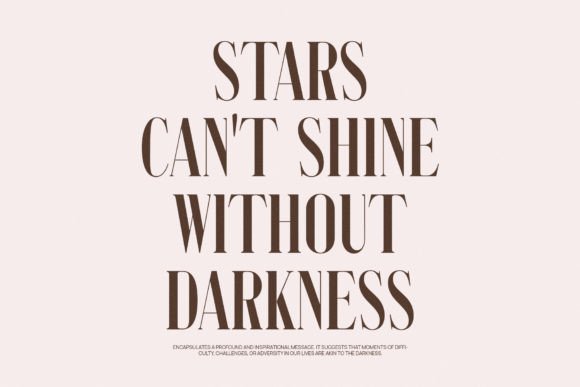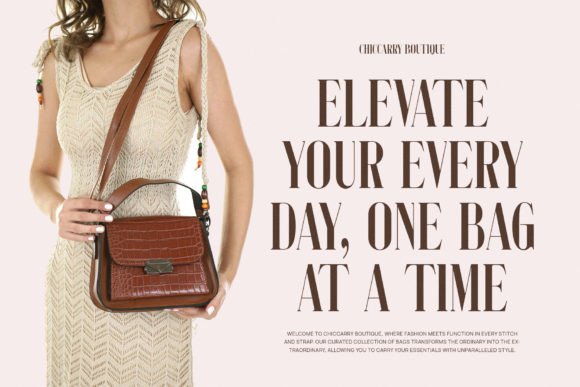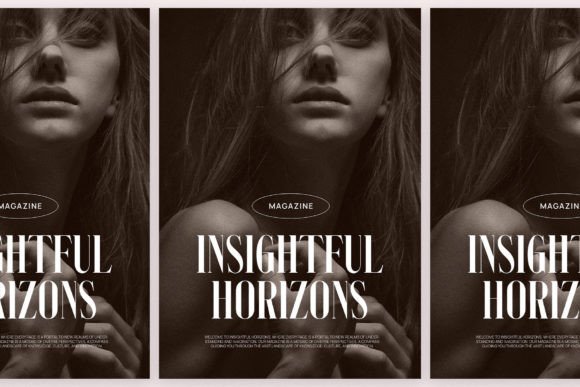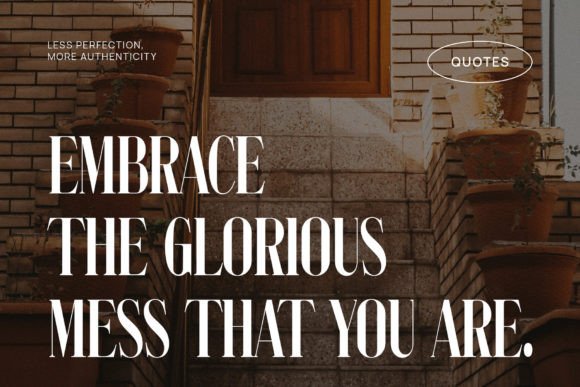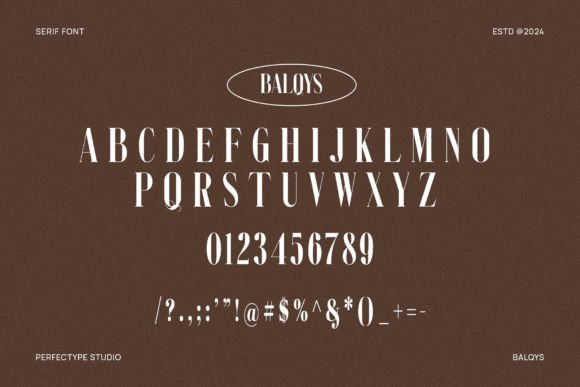
The Elegance of Balqys Font: A Designer’s New Best Friend
I still remember the last time I was working on a wedding design project, and my client asked for a font that was both elegant and modern. I scoured the internet, tried out countless fonts, but nothing seemed quite right. That was until I stumbled upon Balqys Font. ✨ It was love at first sight! The perfect blend of serif elegance and contemporary style, it was exactly what I needed to bring my design to life.
An Honest Review of Balqys Font
- ✅ Elegant serif typeface with a modern twist
- ✨ Highly readable, making it perfect for body text
- ✅ Versatile and suitable for a wide range of design projects
- 💼 Great for branding, logos, wedding designs, social media posts, and more
While Balqys Font is an excellent choice for many design projects, there are a few things to keep in mind. 🤔
- ⚠️ Limited availability of certain OpenType features in some platforms
- ⚠️ May not be the best choice for very large or very small font sizes
The Story Behind Balqys Font
Balqys Font was designed with the goal of creating a elegant and modern serif typeface that would be suitable for a wide range of design projects. The designer, inspired by classic serif fonts and modern design trends, crafted a font that is both highly readable and visually appealing.
| Font Name | Balqys Font |
| Author | Perfectype |
Q: What is Balqys Font?
A: Balqys Font is a elegant serif typeface combined with a classy and modern style, suitable for a wide range of design projects.
Q: Is Balqys Font suitable for body text?
A: Yes, Balqys Font is highly readable and suitable for body text, making it perfect for long-form reading.
Q: Is Balqys Font available in different styles?
A: Yes, Balqys Font comes in various styles, including regular, italic, and bold, allowing you to add depth and variety to your design.